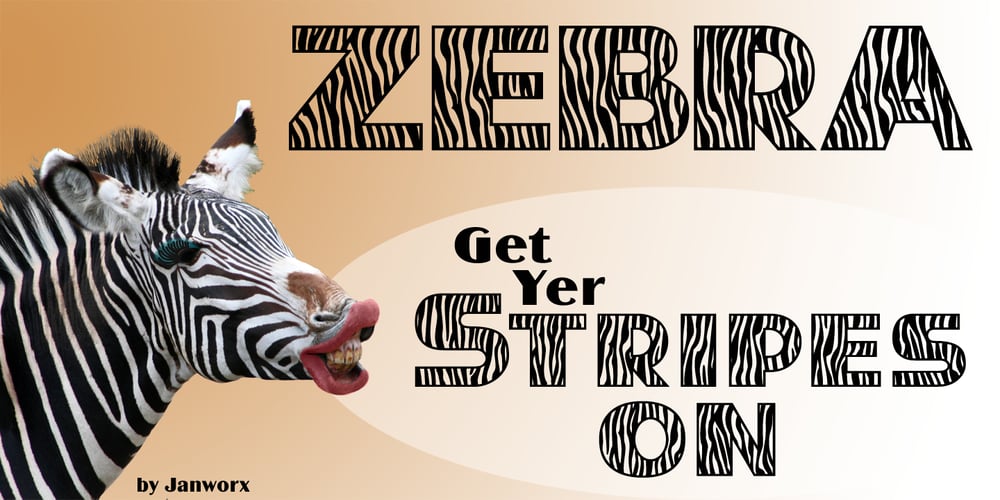
JWX Zebra
JWX Zebra font
JWX Zebra Font Family was designed by Janet Ellis Valdez and published by Janworx. JWX Zebra contains 1 styles and family package options. Zebra, designed by Janet Valdez of Janworx, is a bold sans serif typeface, heavy on one side, and sporting a realistic zebra animal theme. Both upper and lower case are all caps. Incorporating the stripes into the font eliminates the need to power-clip or edit an existing font to reflect the animal theme. Creating artwork for spirit wear of a team with a zebra mascot has never been easier. This typeface is suitable for use at a large size, and would work well for screen printing, vinyl work and posters.